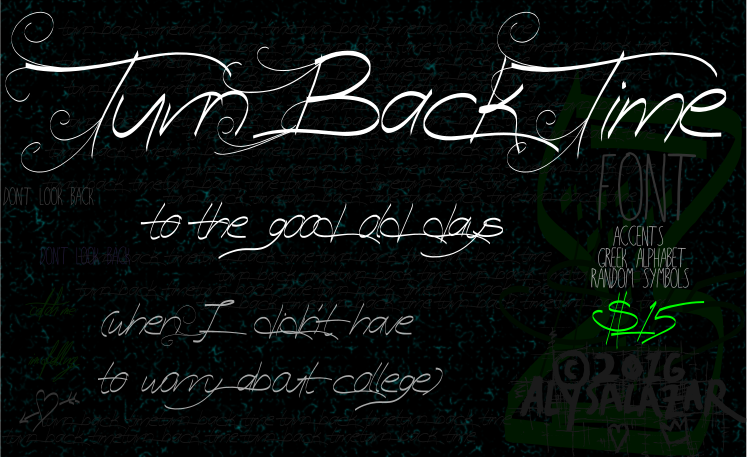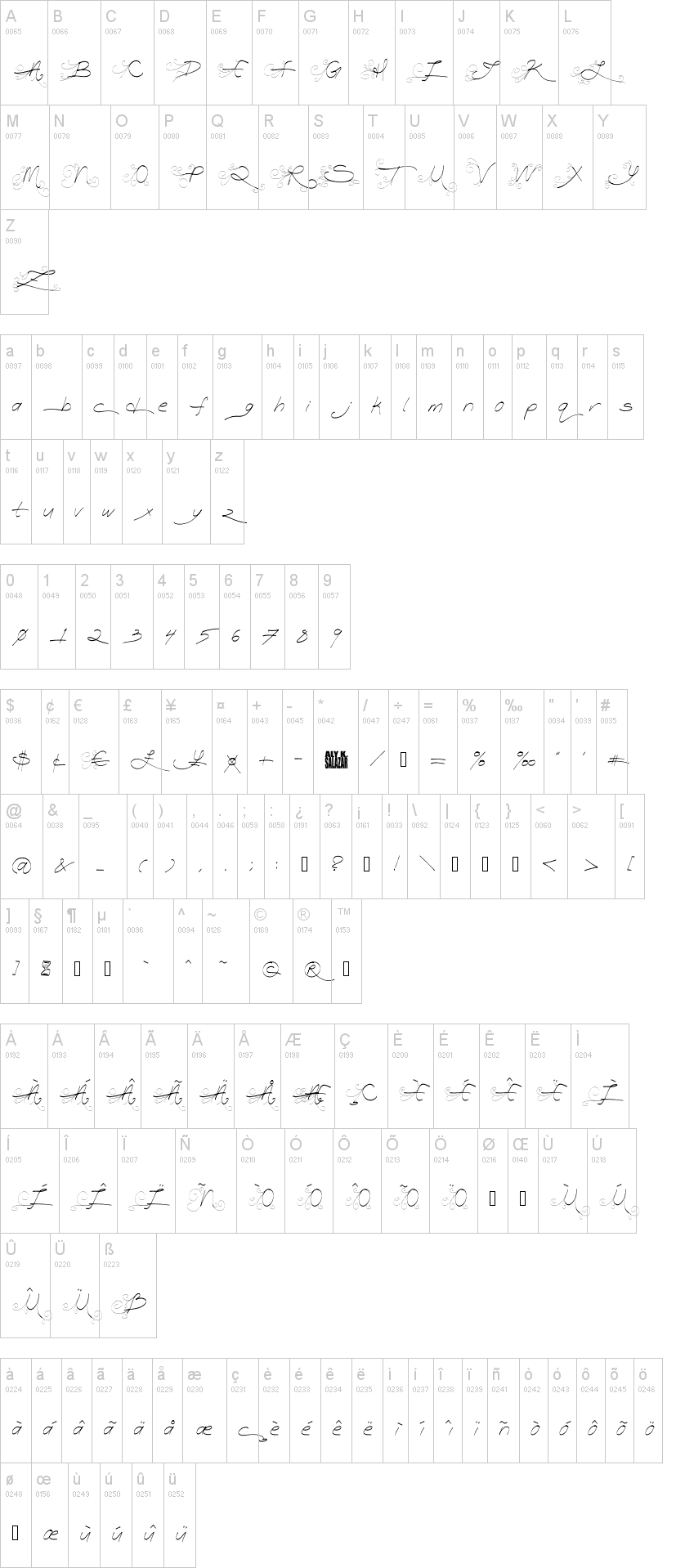
Note of the authorsome sort of fancy-script writing that i had a lot of fun making. so much fun, in fact, that i decided to randomly add in all sorts of other characters, including a greek alphabet and a couple random emojis. enjoy!